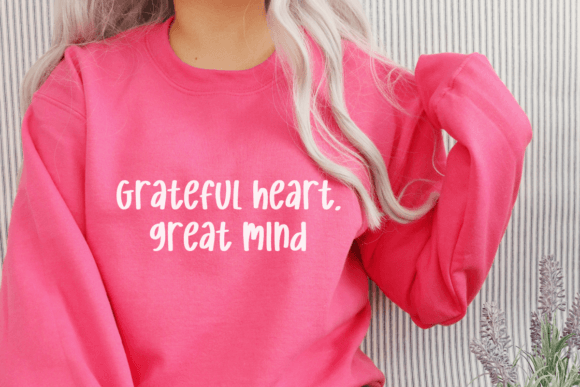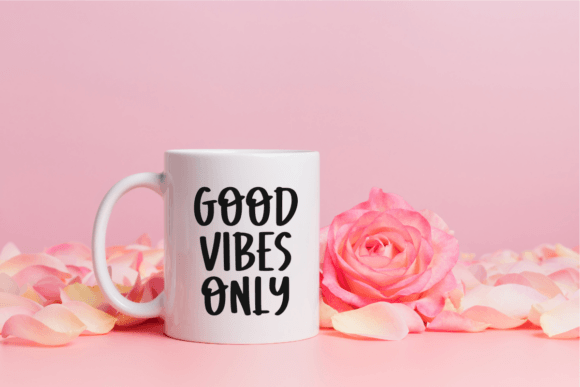
When Words Become Masterpieces
As creatives, we’ve all experienced that moment when a single font brings our vision to life. For me, it’s the sound of my pen scratching against the paper, the glow of my screen as I type out a heartfelt message, or the thrill of seeing my design come together. It’s in these moments that I’m reminded of the power of the right font. And today, I want to share with you one such treasure – the Forever Grateful Font.
This charming sans-serif font is more than just a design element; it’s a reflection of our personality and style. With its natural strokes and playful touches, the Forever Grateful Font brings a sense of whimsy and joy to any project. Whether you’re a graphic designer, a crafty entrepreneur, or simply a creative soul, this font is a valuable addition to your library, elevating your work to new heights.
Key Features of Forever Grateful Font
- Font Styles: The Forever Grateful Font includes 6 different font styles: Regular, Italic, Bold, Bold Italic, Script, and Script Italic.
- Character Set: The font includes a wide range of characters, including Latin, Cyrillic, and Greek alphabets, as well as punctuation and symbols.
- Unique Characteristics: The Forever Grateful Font features a unique, hand-drawn design with a warm and inviting feel, making it perfect for use in creative and emotional contexts.
Designer Review: Forever Grateful Font
Overall, I’m thoroughly impressed with the Forever Grateful font. The designer has done an exceptional job in creating a unique and emotive typeface that perfectly captures the essence of gratitude.
- ✨ The font’s emotional depth: Forever Grateful effectively conveys a sense of warmth and appreciation, making it perfect for projects that require a heartfelt touch.
- ✨ The versatility: This font is suitable for a wide range of projects, from wedding invitations to social media graphics, and even restaurant menus.
- ✨ The attention to detail: The font’s subtle flourishes and curved lines add a touch of sophistication and elegance.
- ⚠️ The font’s legibility at small sizes: While the font is beautiful, it can become difficult to read when used at small font sizes.
- ⚠️ The font’s limited language support: As with many custom fonts, Forever Grateful may not support all languages, which can limit its use in multilingual projects.
Overall, I’m thoroughly impressed with the Forever Grateful font, and I would highly recommend it for any project that requires a touch of warmth and appreciation. However, be mindful of its limitations, and use it in contexts where its unique qualities can shine through.
Tip: Use the Forever Grateful Font for inspirational quotes, thank-you messages, or other heartfelt content.
Tip: Use the Forever Grateful Font for custom graphics, invitations, or other creative projects.
Tip: Use the Forever Grateful Font for presentations, reports, or other formal documents.
The Forever Grateful Font is ideal for:
- Inspirational quotes and messages
- Thank-you notes and cards
- Custom graphics and invitations